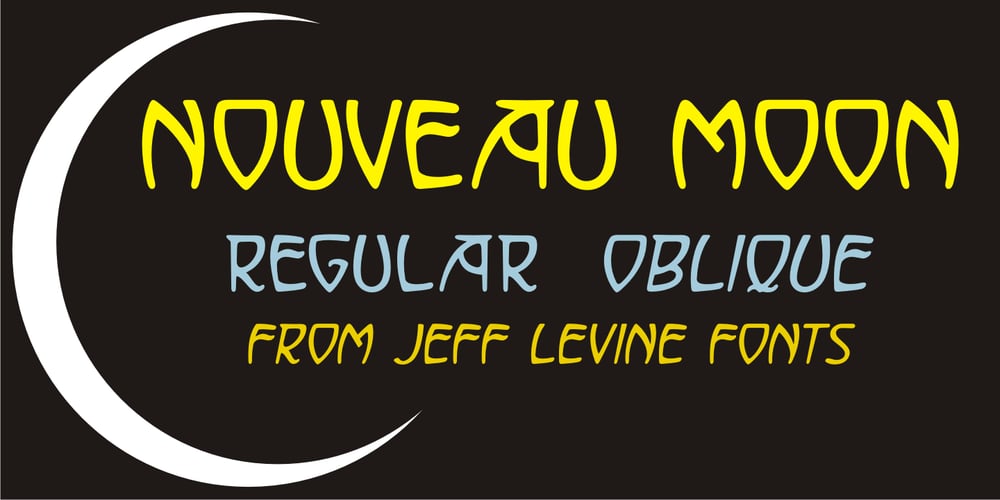
Nouveau Moon JNL Font Family was designed by Jeff Levine and published by Jeff Levine. Nouveau Moon JNL contains 2 styles and family package options. The 1911 sheet music for “A Hot Time In Monkeytown” is an example of Art Nouveau hand lettering that could not be ignored as a typographic design source. The end result is Nouveau Moon JNL, which is available in both regular and oblique versions.